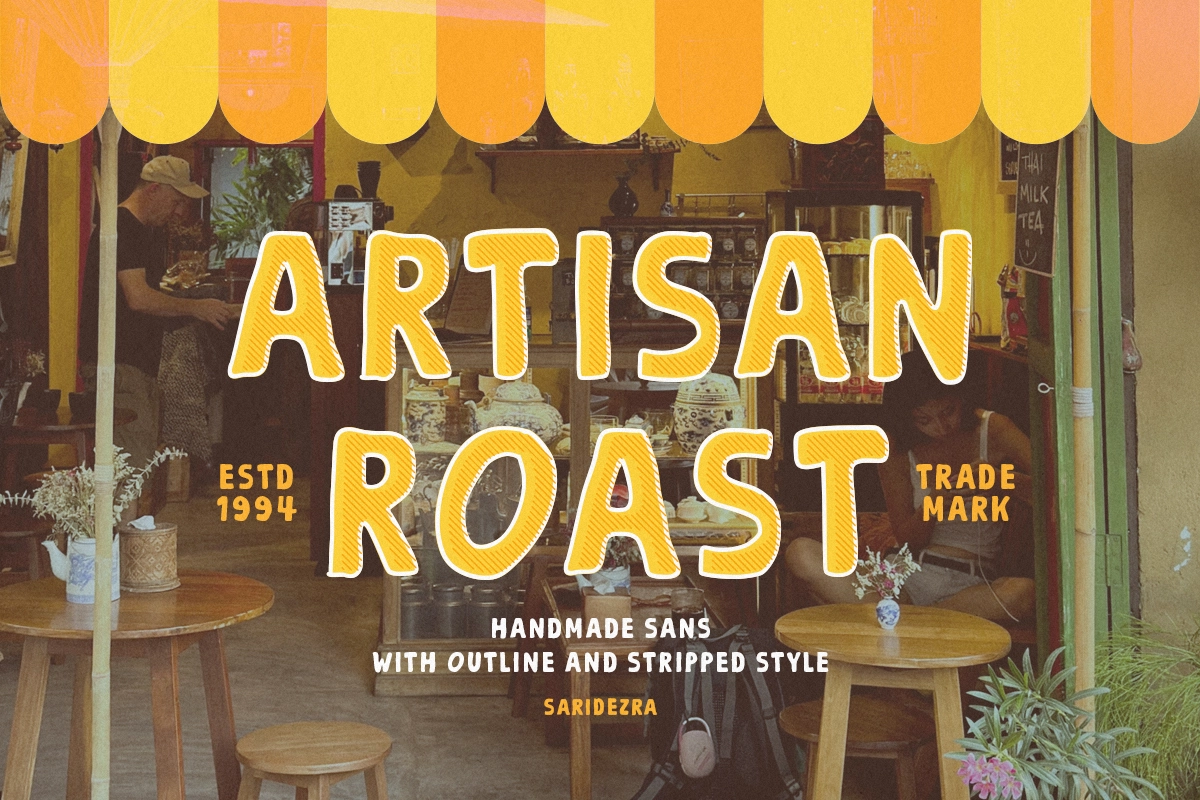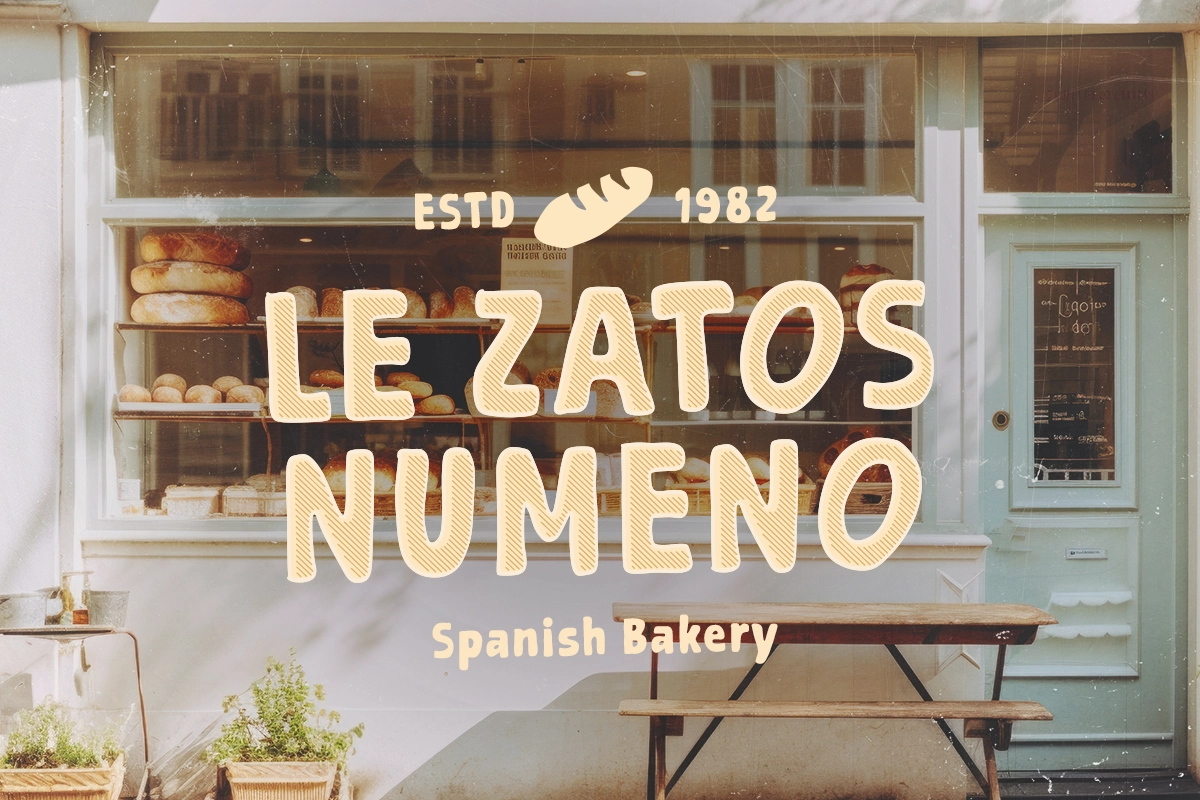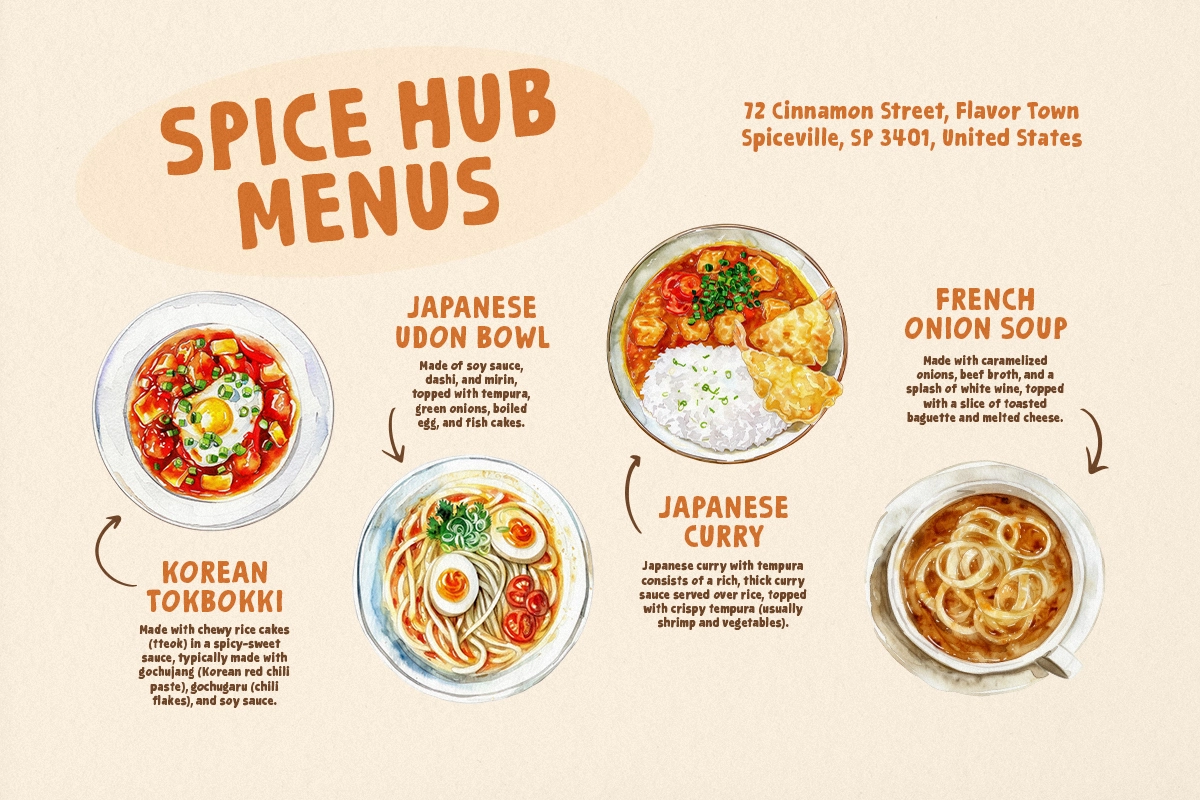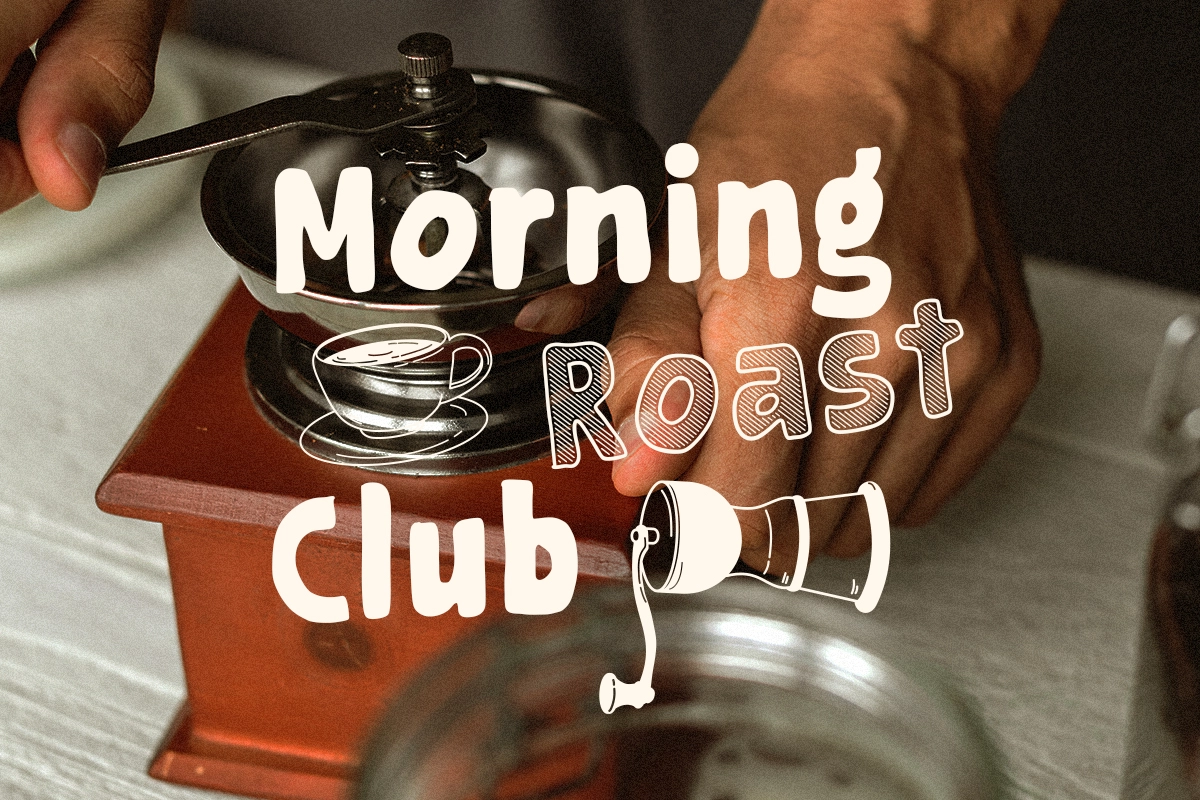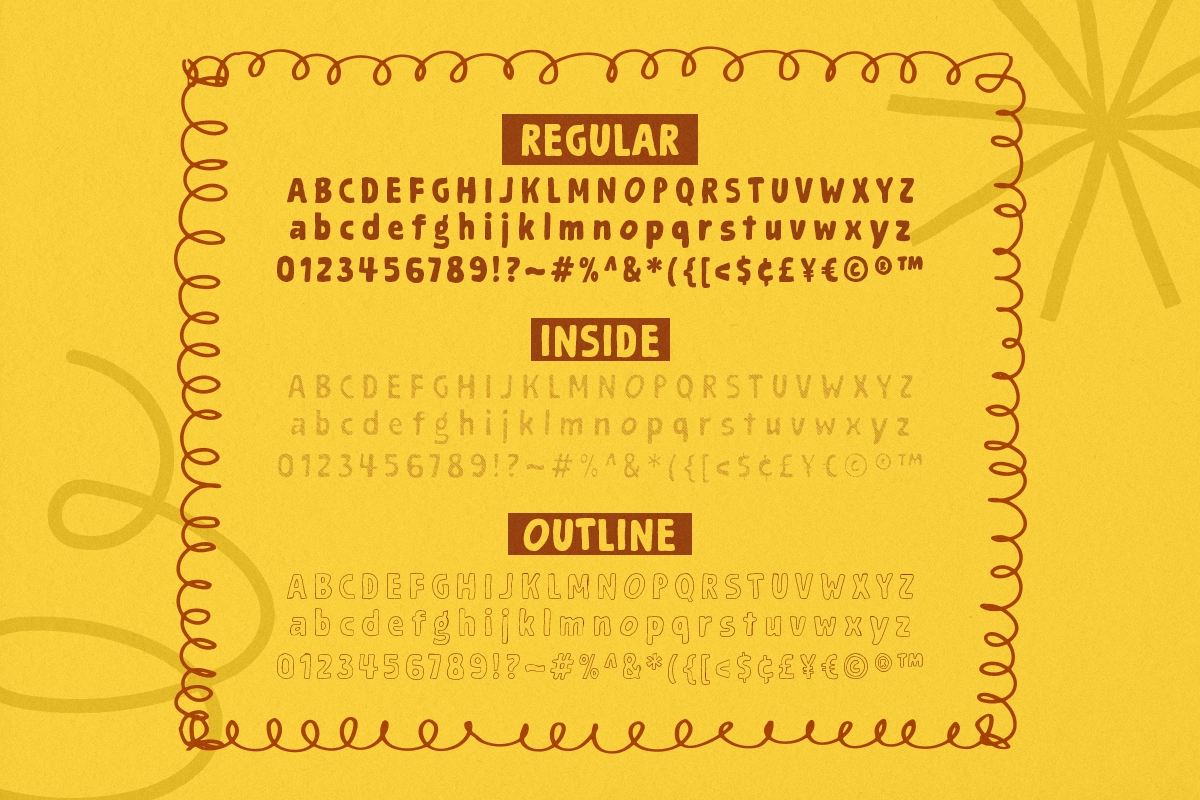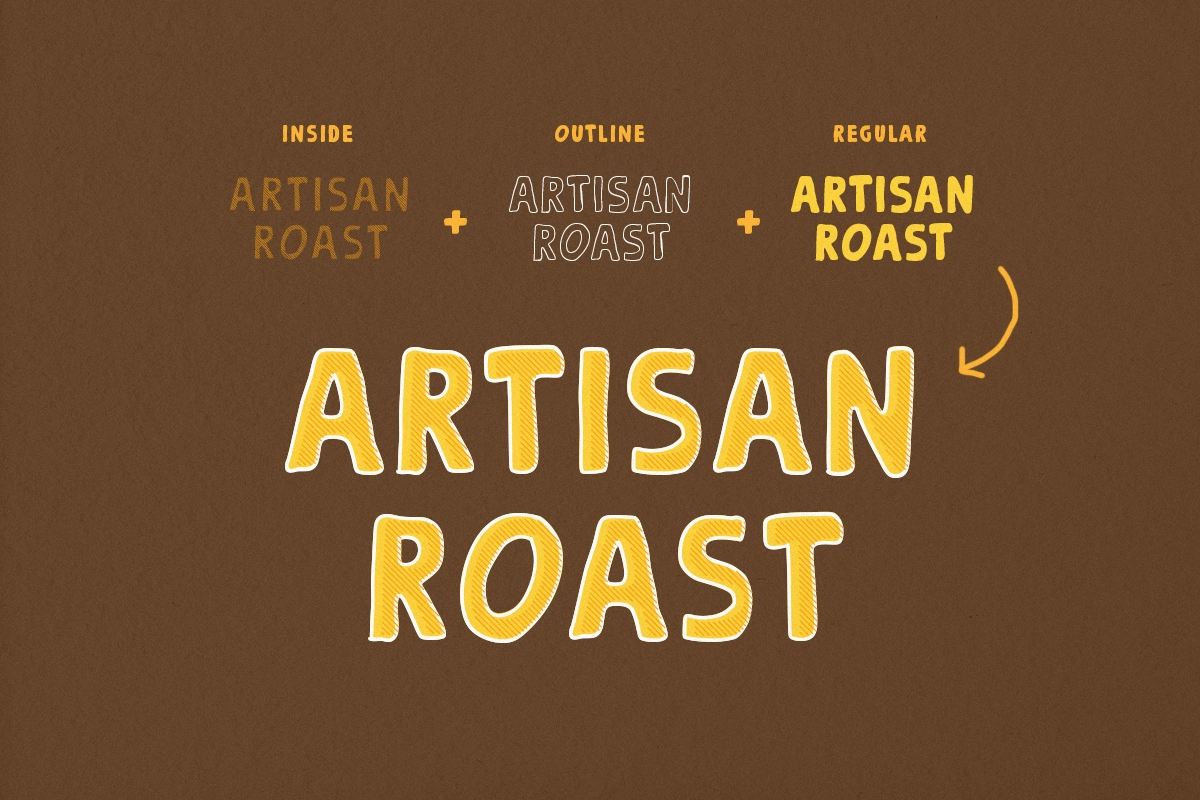
Artisan Roast - Layered Organic Sans
Artisan Roast is a handmade sans with three styles from Inside, Outline, and Regular. You can stack up the three styles to make it more stunning and make the font have stylist effect. You can use this font for any purpose such as logotype, quotes, branding, or any project that need human and organic touch. This font also support multi language.